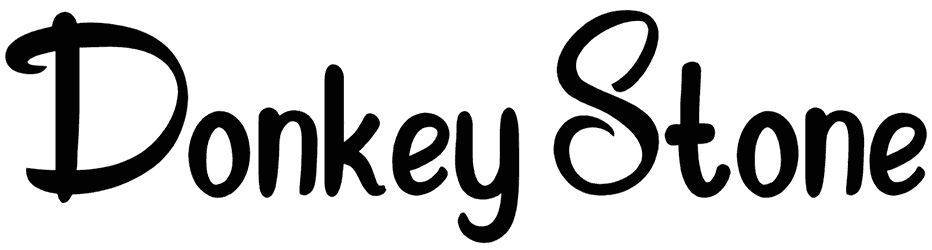
Donkey Stone Font
The Donkey Stone is a cartoon font that is available for letters and numbers but not symbols. The curving shape of this font’s characters sends the feeling of happiness and immediately entertains the viewer. The unique design of this font takes you back to your childhood memories.
Thus, by using this font, you guarantee that your audience enjoys following the content. With its creative design, the Donkey Stone font is practical for any situation where your goal is to persuade the viewer to accompany you.